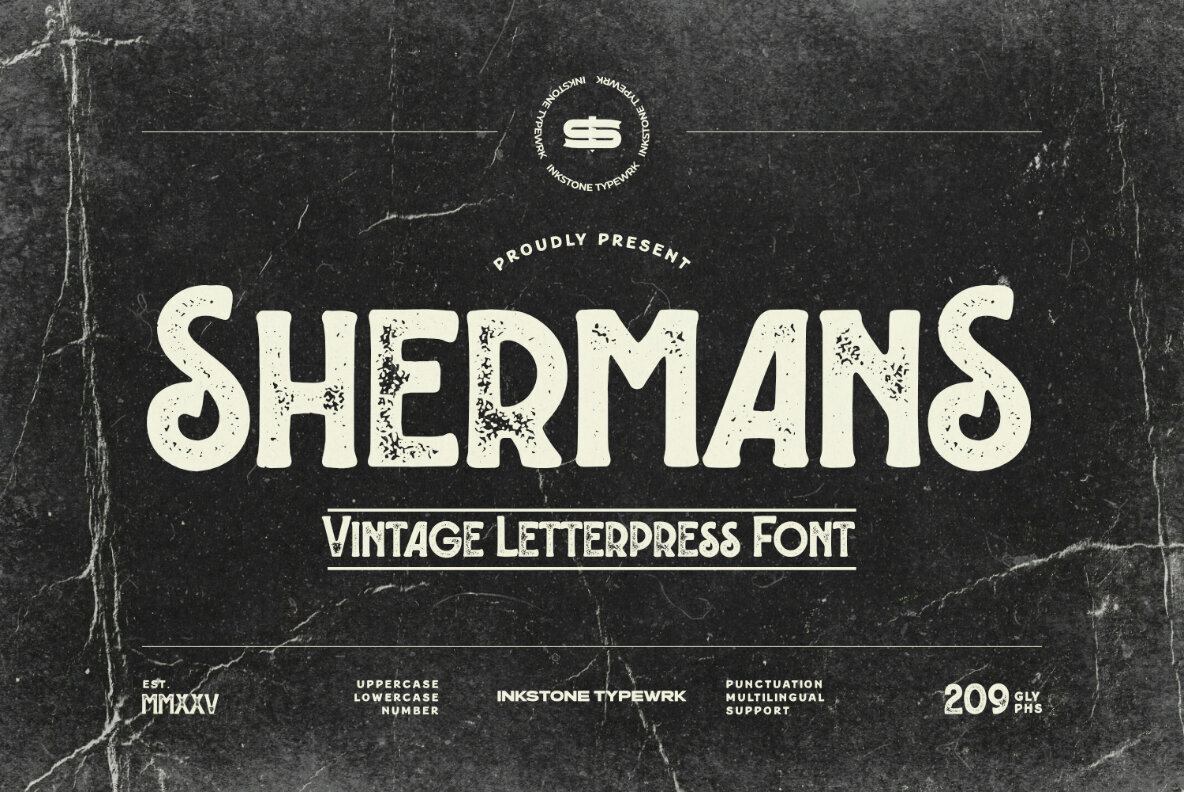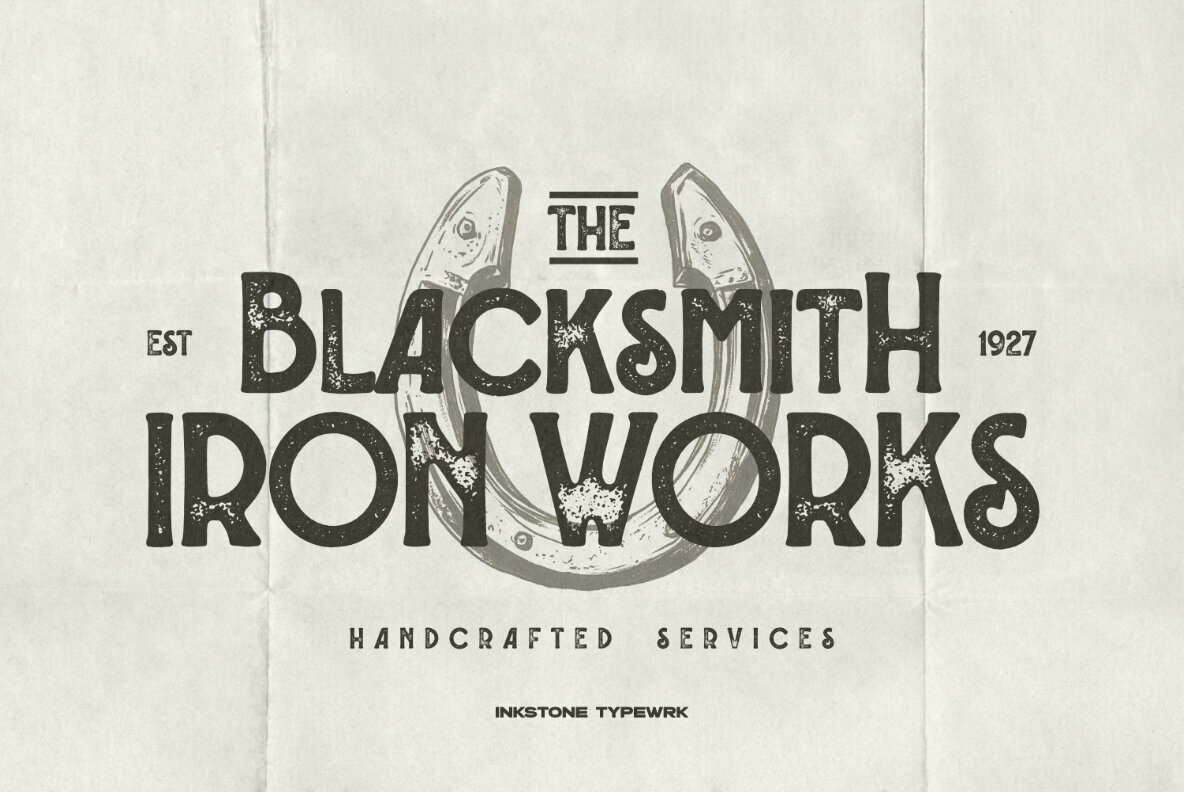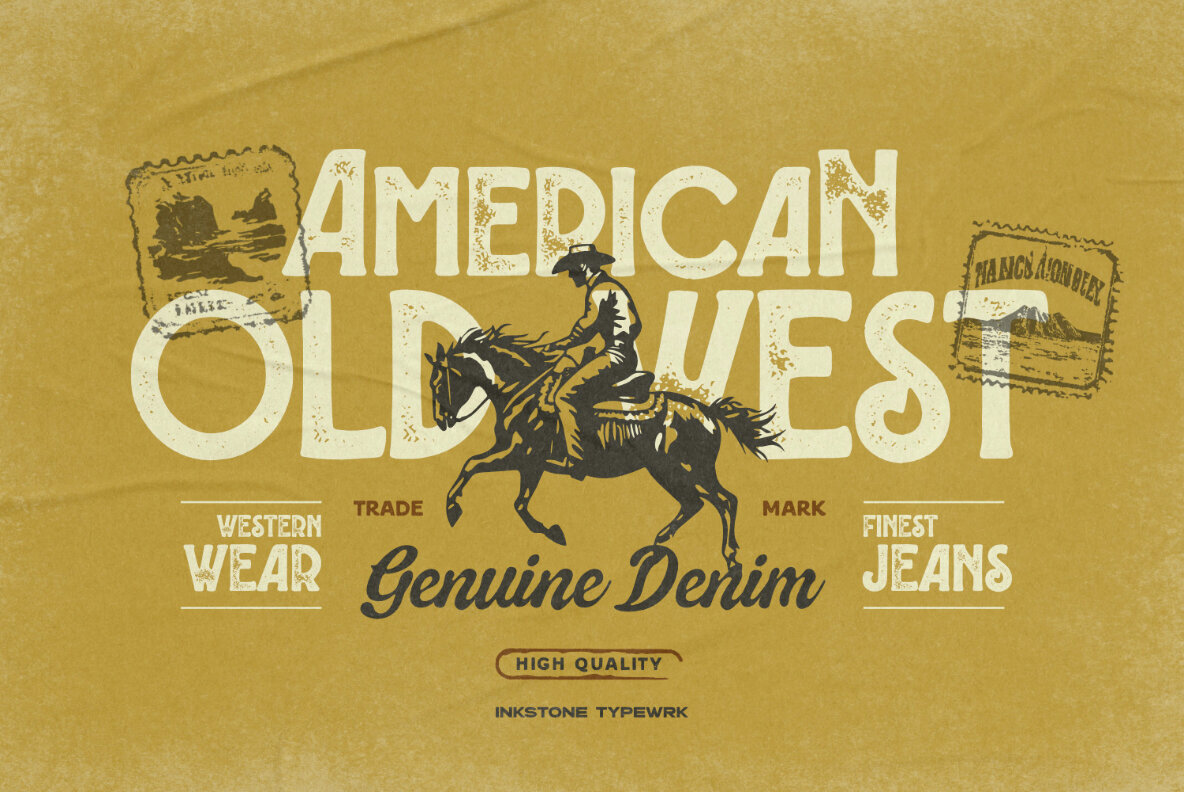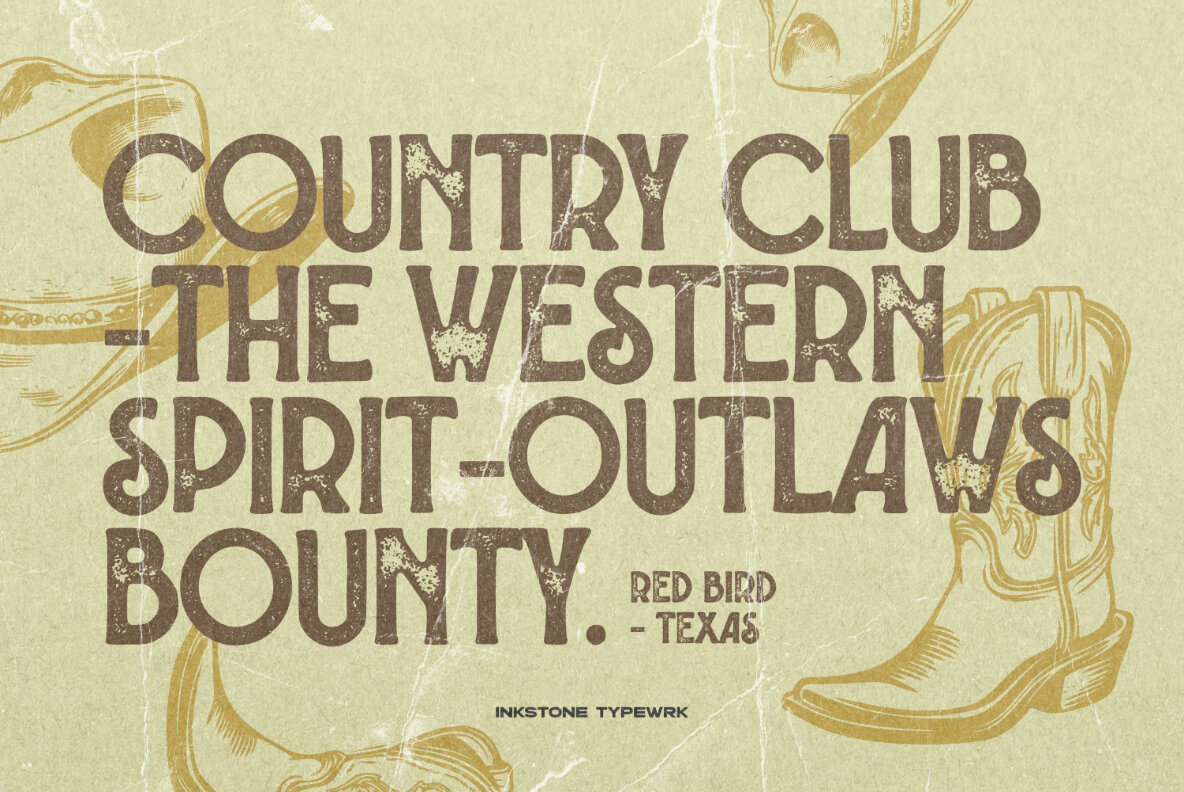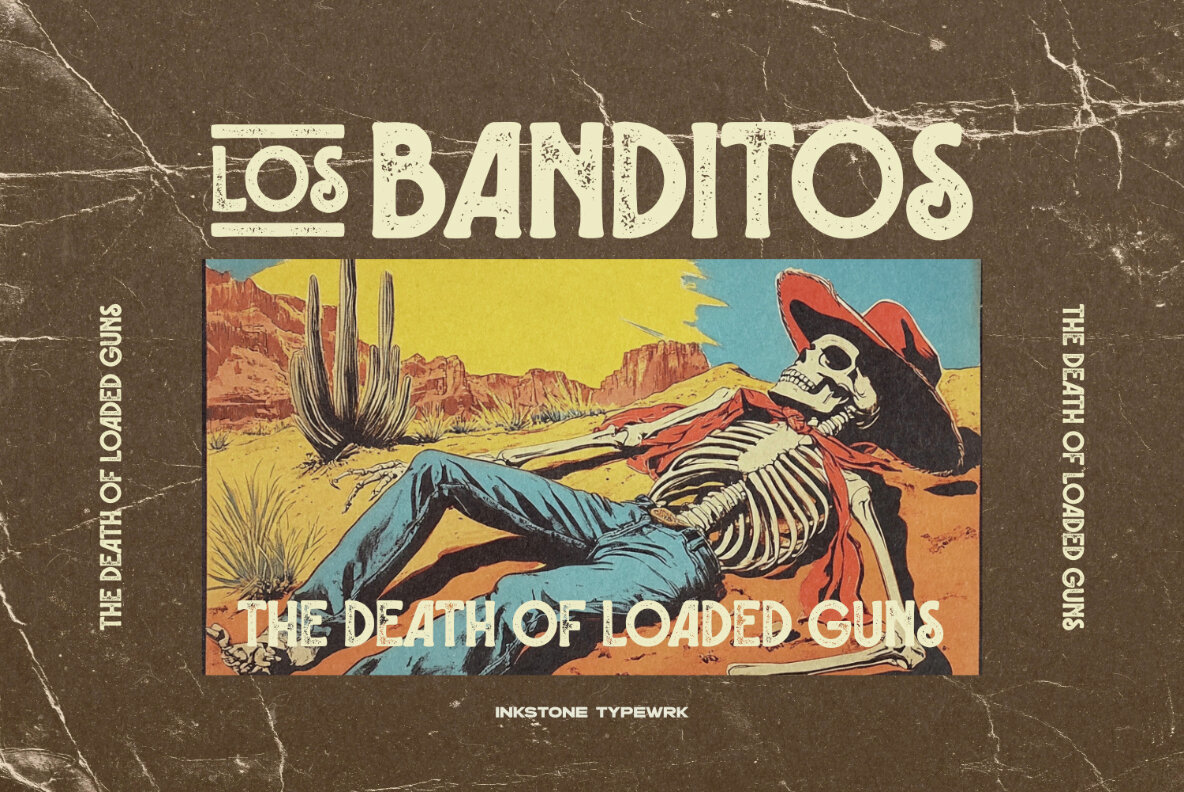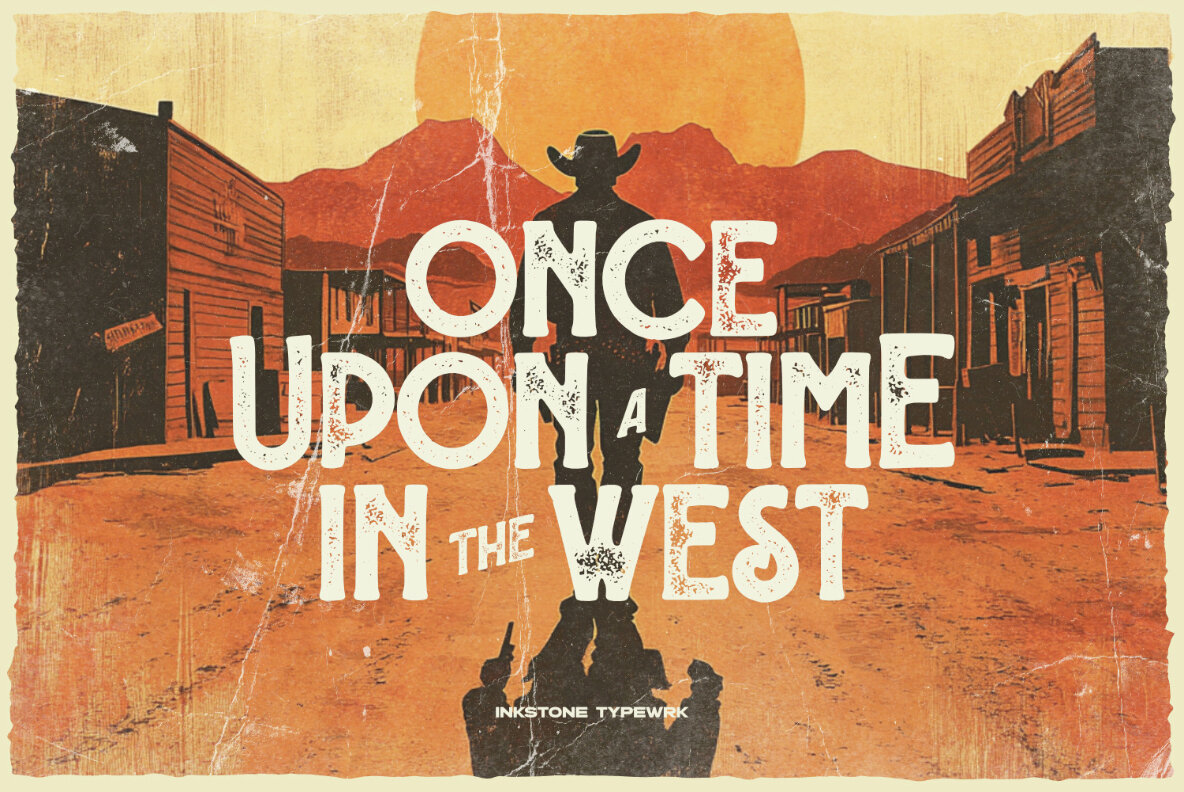
Shermans Font
Shermans
Shermans - Vintage Letterpress Font Step into the world of raw craftsmanship with Shermans, a vintage letterpress font built for those who love the rough, textured, and handcrafted aesthetic. Inspired by classic print shops and old-school signage, this typeface packs a punch with its distressed, masculine, and organic look. Perfect for retro branding, rugged packaging, bold headlines, and timeless design projects, Shermans brings an authentic, worn-in feel that screams character and attitude. Whether you're crafting a badass logo, an old-school poster, or some gritty merch, this font delivers that perfectly imperfect letterpress vibe.